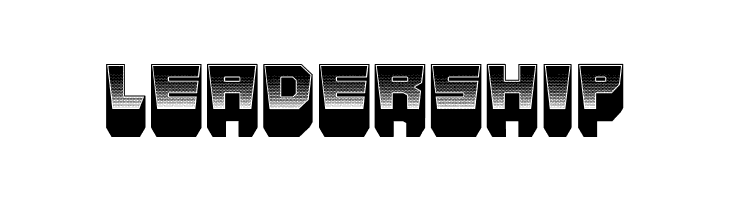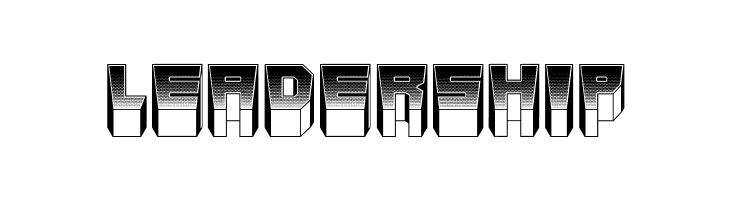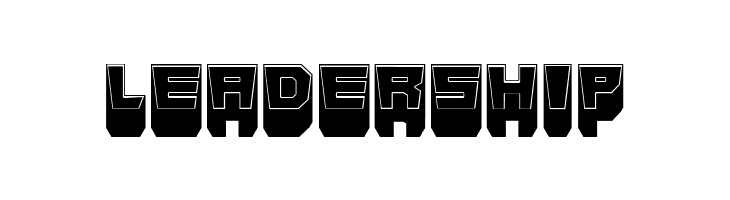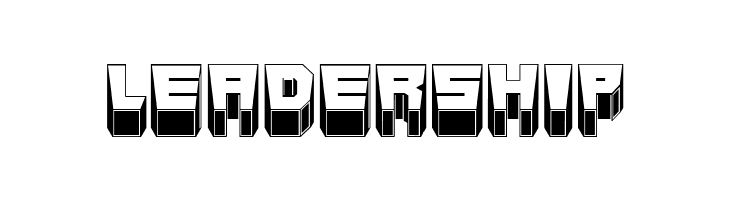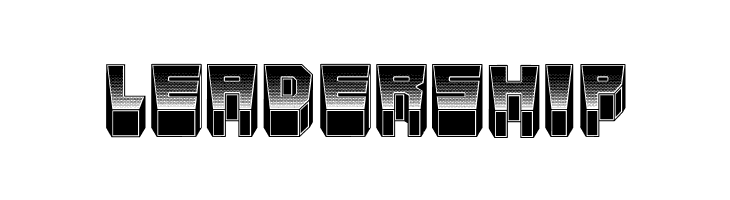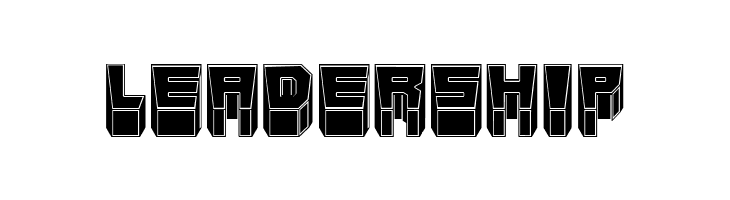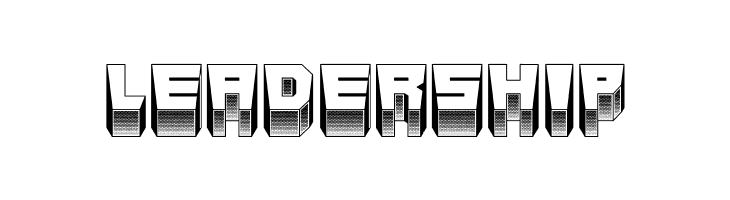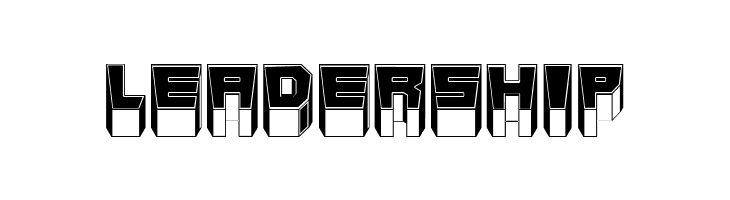
A bold, 3D metallic font with a futuristic and industrial look.
A bold, 3D metallic font with shadow effects and a futuristic style.
A bold, 3D font with a metallic shadow effect, perfect for impactful designs.
A bold, 3D metallic font with shadow effects and a futuristic style.
A bold, metallic, 3D font with sharp, angular edges and a futuristic style.
A bold, three-dimensional font with a metallic, sharp, and geometric design.
A bold, 3D metallic font with sharp, geometric shapes and a shadow effect.
A bold, metallic, 3D font with a modern, geometric design.
A bold, metallic, 3D font with a futuristic and industrial style.
A bold, dynamic font with a 3D effect and angular design.